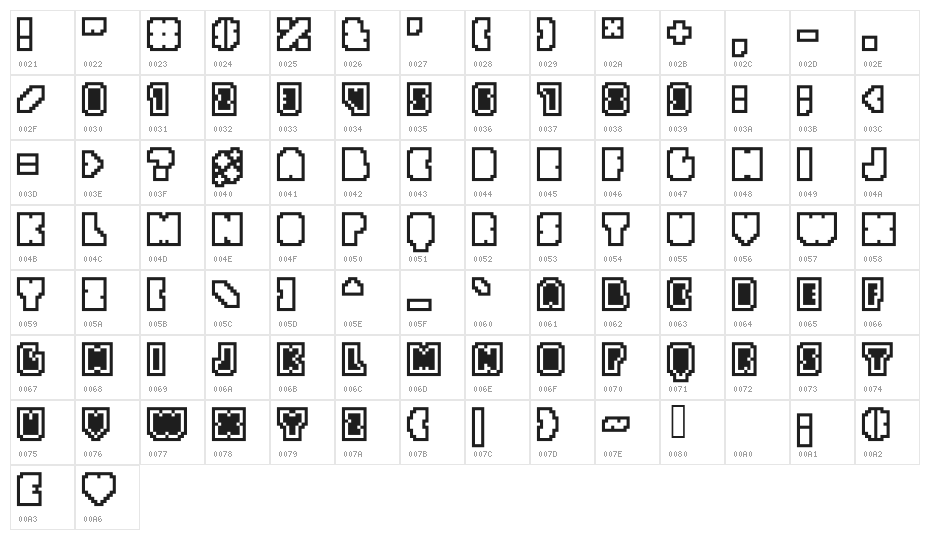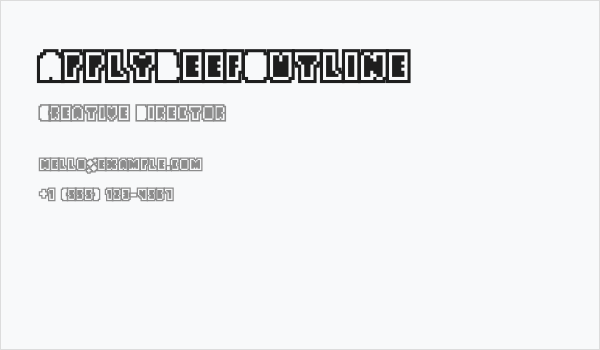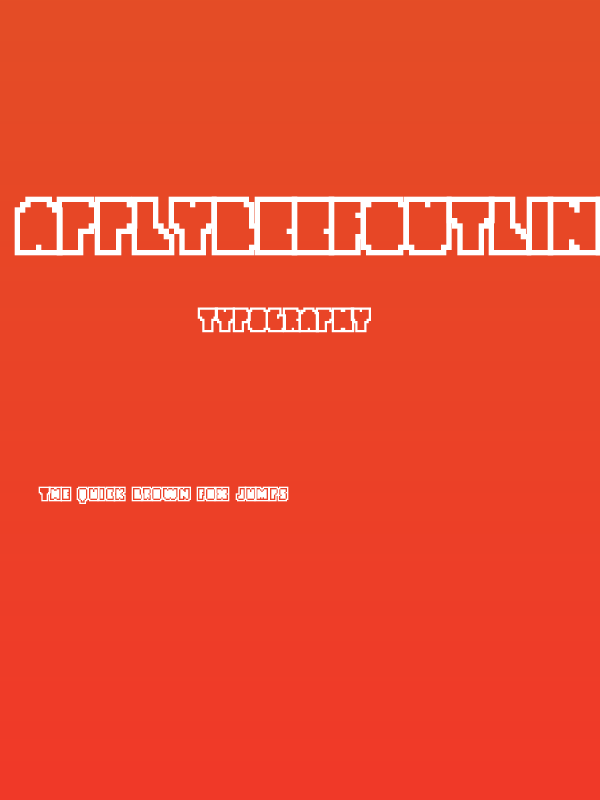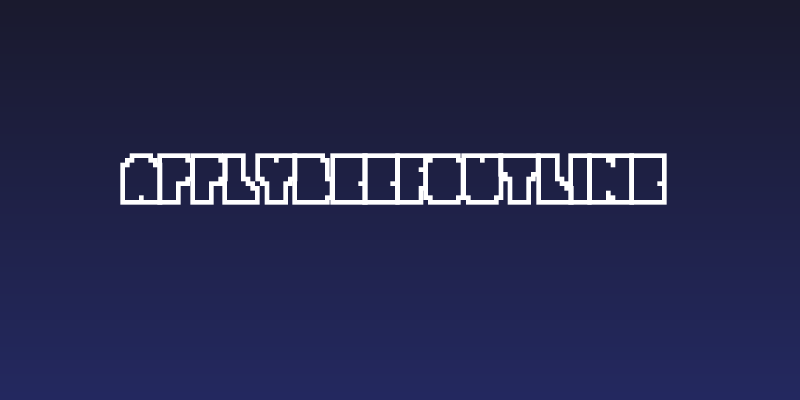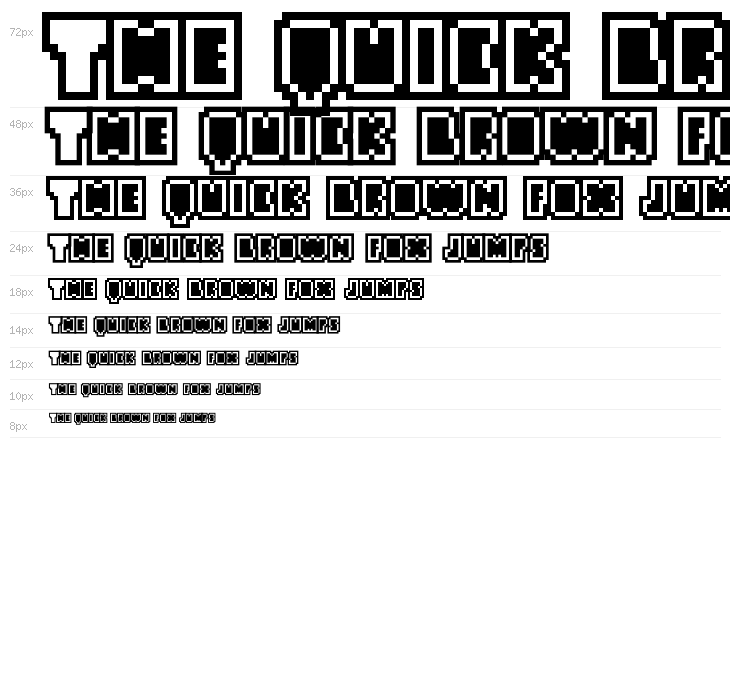
ApplyBeefOutline Font
ApplyBeefOutline Description
This font features a bold, outlined style with a pixelated, blocky appearance reminiscent of retro video game graphics. Each character is defined by thick, uniform strokes that create a strong visual impact. The geometric shapes and sharp angles give it a distinct, playful look, making it ideal for designs that require a touch of nostalgia or a digital theme. The uppercase and lowercase letters maintain a consistent height, enhancing its structured and cohesive appearance. Numbers and special characters follow the same design principles, ensuring uniformity across all elements.
| Overall Style | Retro, Digital |
| Proposed Projects | Ideal for video game designs, retro-themed posters, digital art projects, and playful branding. |